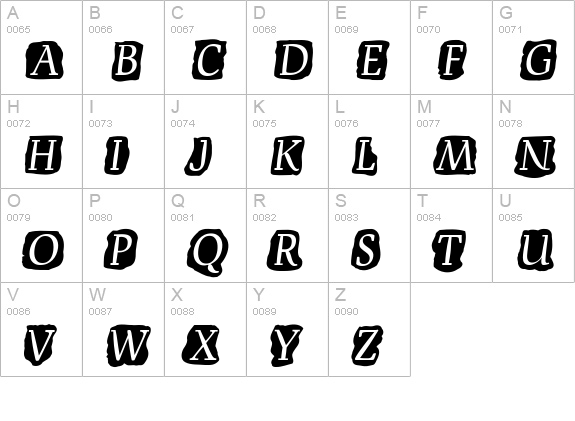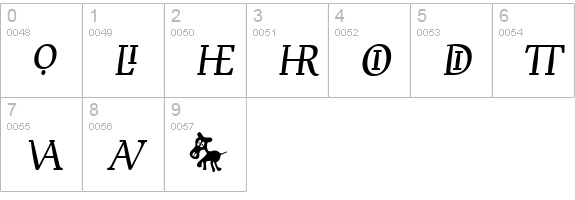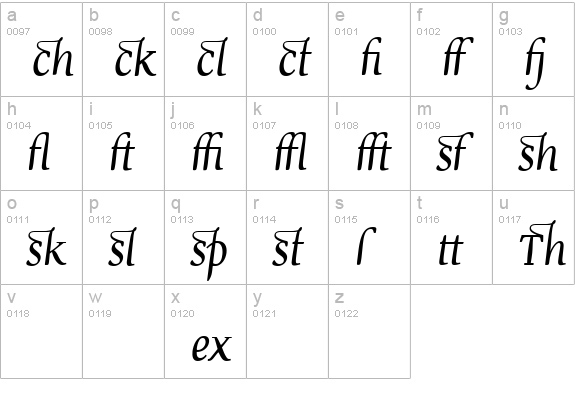
Devroye Extra is a stunning display font that exudes elegance and sophistication. With its intricate details and unique design, this font is perfect for making a statement in your projects. The sharp lines and bold strokes of Devroye Extra make it stand out from the crowd, adding a touch of modernity and style to any design. What's even better is that Devroye Extra is available for free download at FontsMarket.com. This means you can easily access this beautiful font and use it in your projects without any cost. Whether you're creating a logo, poster, or any other design, Devroye Extra will elevate your work and leave a lasting impression on your audience. Don't miss out on the opportunity to enhance your designs with this exquisite font - download Devroye Extra for free today!